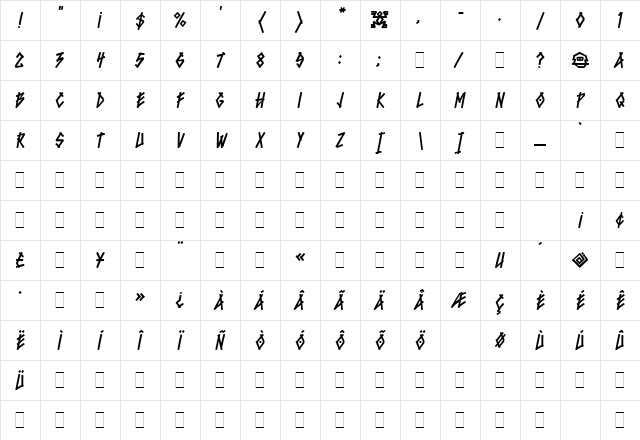
Complete Bluntz LET Plain glyph index. Displaying only characters natively supported by Bluntz LET Plain font.
Bluntz LET is a composed and adaptable typeface that performs quietly and consistently across a wide range of design contexts.